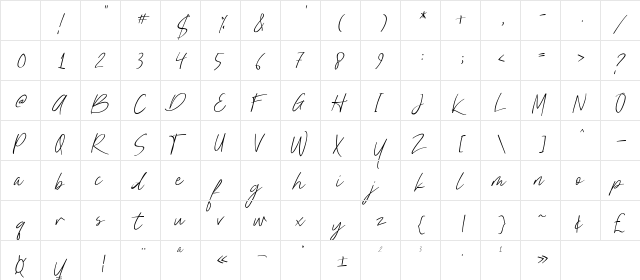
Complete Nathallie demo Regular glyph index. Displaying only characters natively supported by Nathallie demo Regular font.
Nathallie demo is a composed and adaptable typeface that performs quietly and consistently across a wide range of design contexts.